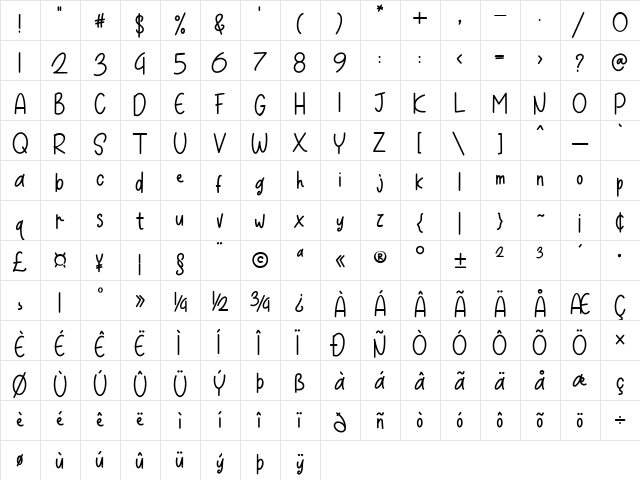
downloadme Regular Font Preview
downloadme Regular
downloadme Regular Font Details
| Foundry | Vaiminit Studio |
| Designer | Vaiminit |
Design Context for downloadme Typeface
downloadme takes a measured approach to typography — its balanced proportions and neutral character make it a reliable workhorse for both digital and print work.